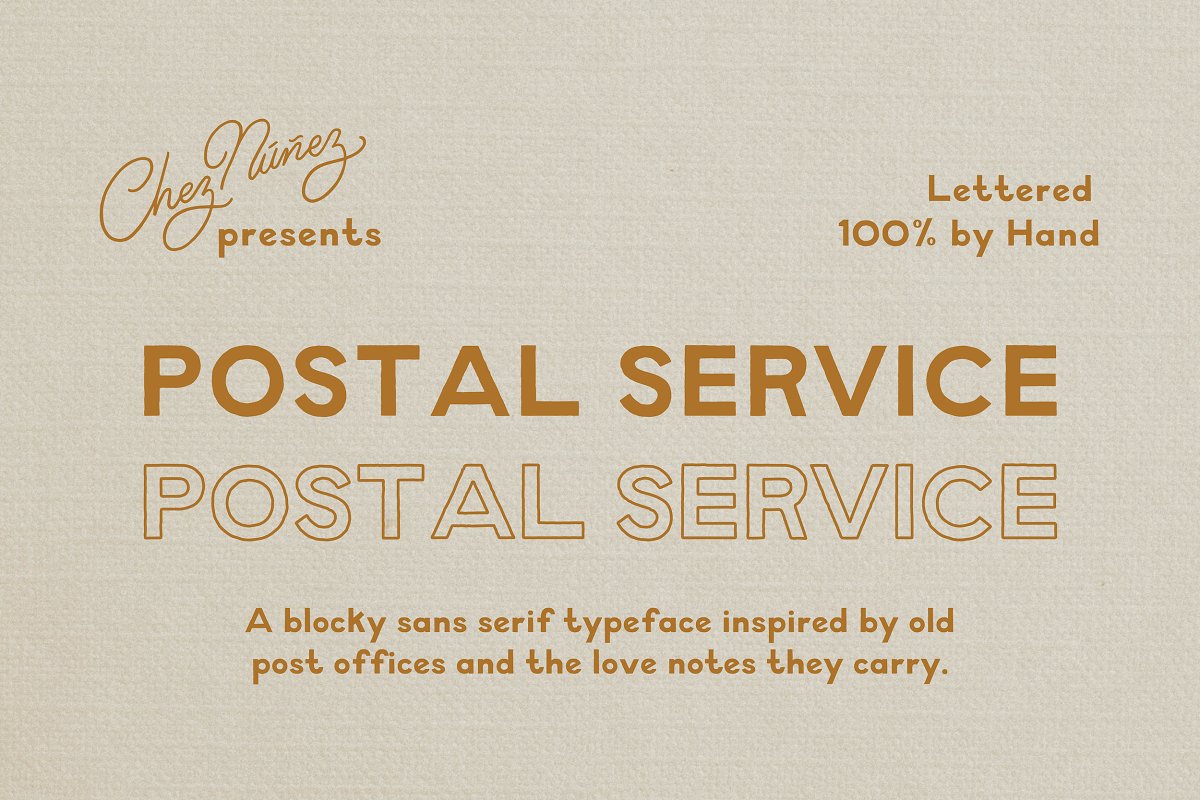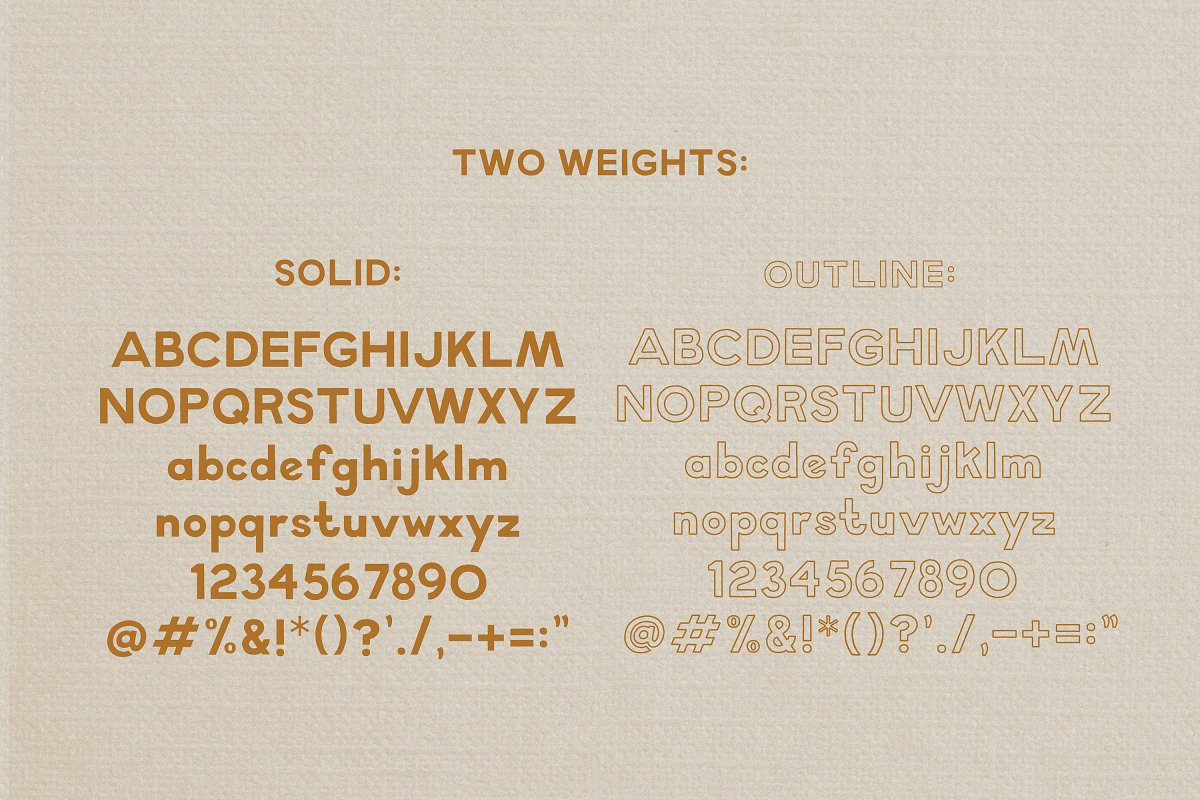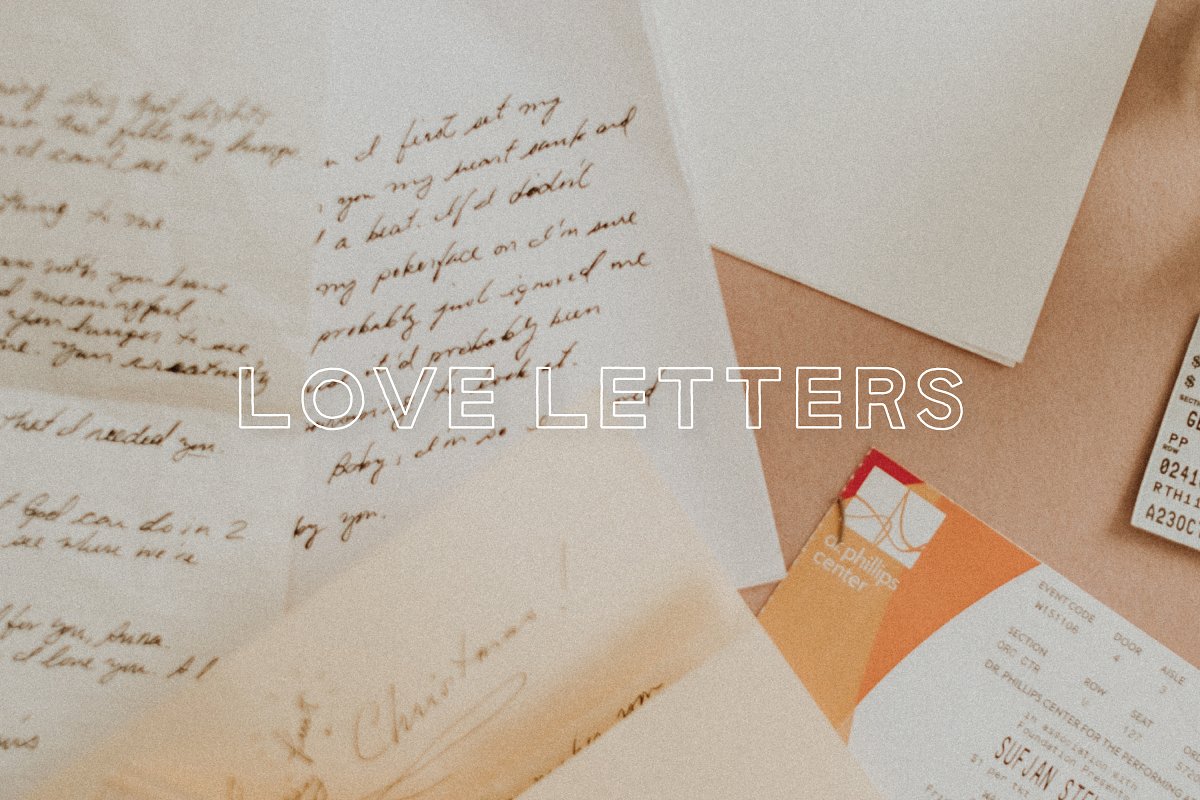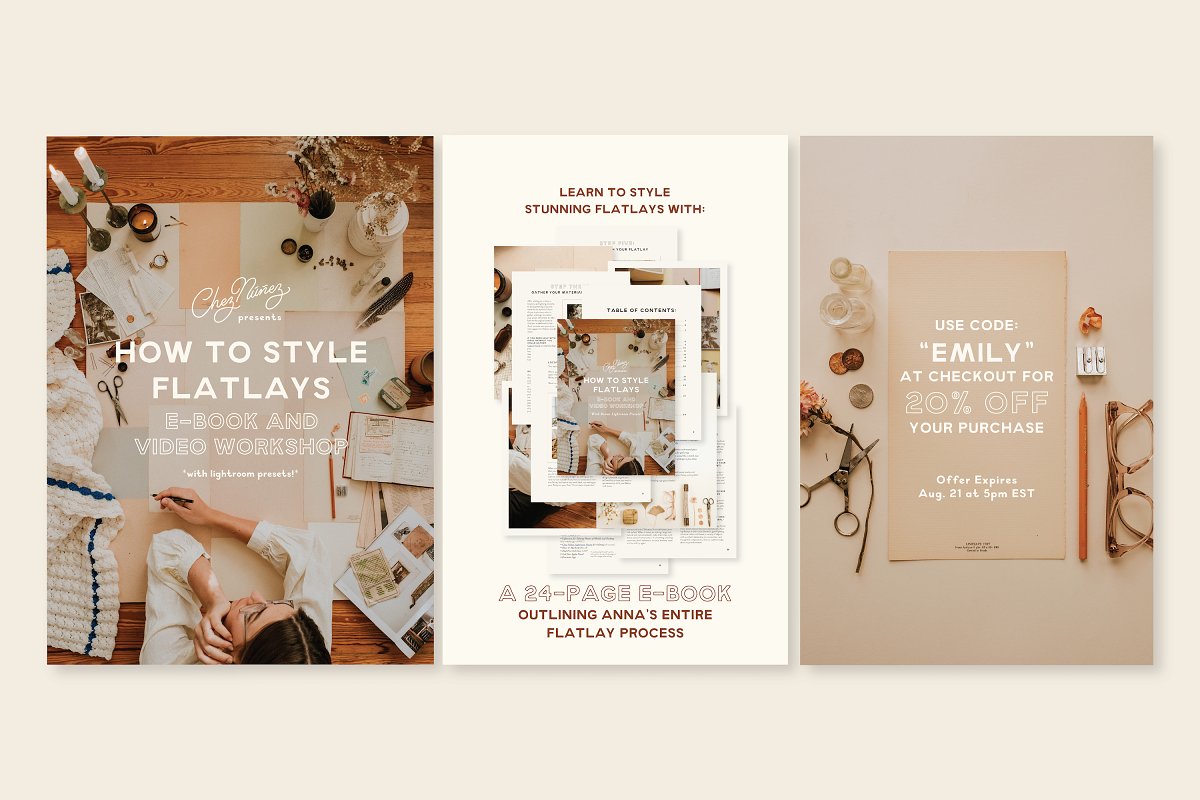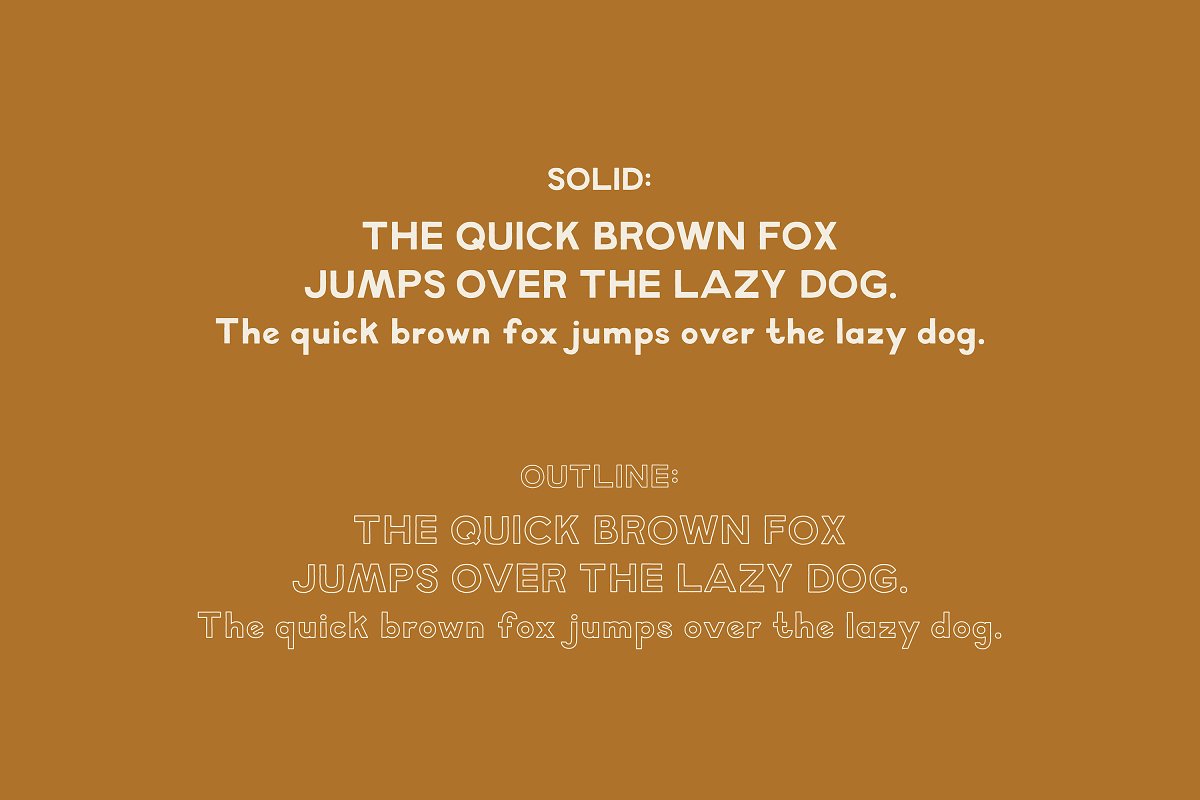
This font is inspired by the classic Americana style of the early 20th century. It is perfect for any project that needs a touch of nostalgia, romance, or whimsy. The letters are simple and clean, with a slightly distressed look that gives them a vintage feel. A blocky, nostalgic sans serif typeface inspired by old post offices and the love notes they.
Carry.Features: 2 weights: SOLID and OUTLINE Standard Latin Characters + Numericals- lettered by hand, by Anna Núñez Punctuation, Mathematical Symbols, and Spanish accent marks – lettered by hand, by Anna NúñezWhat’s included in your purchase of this.